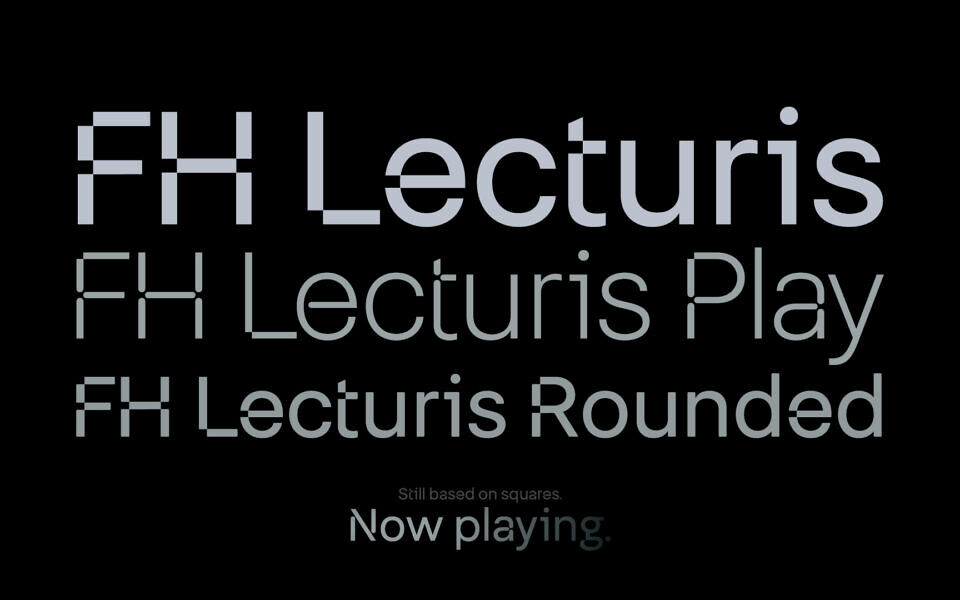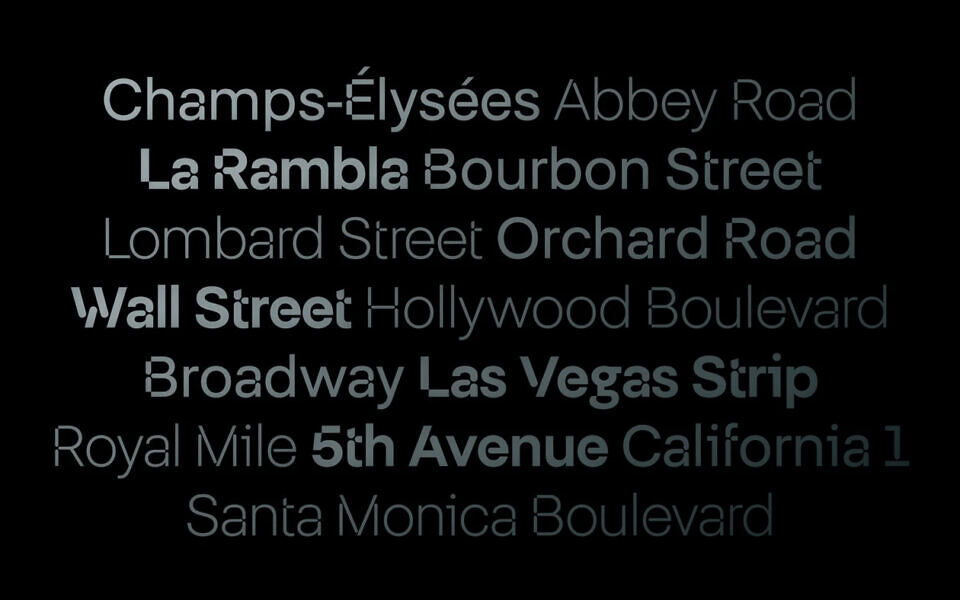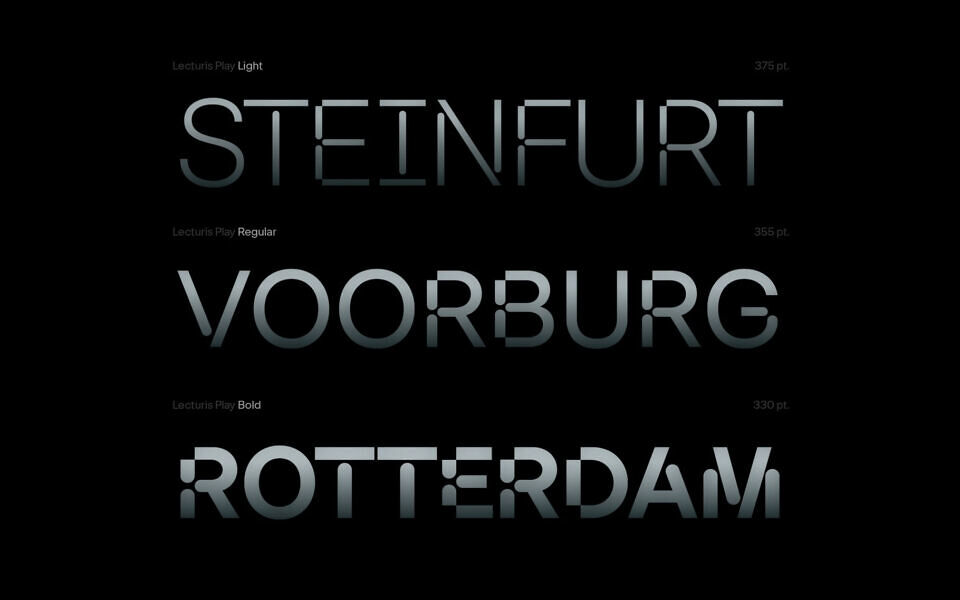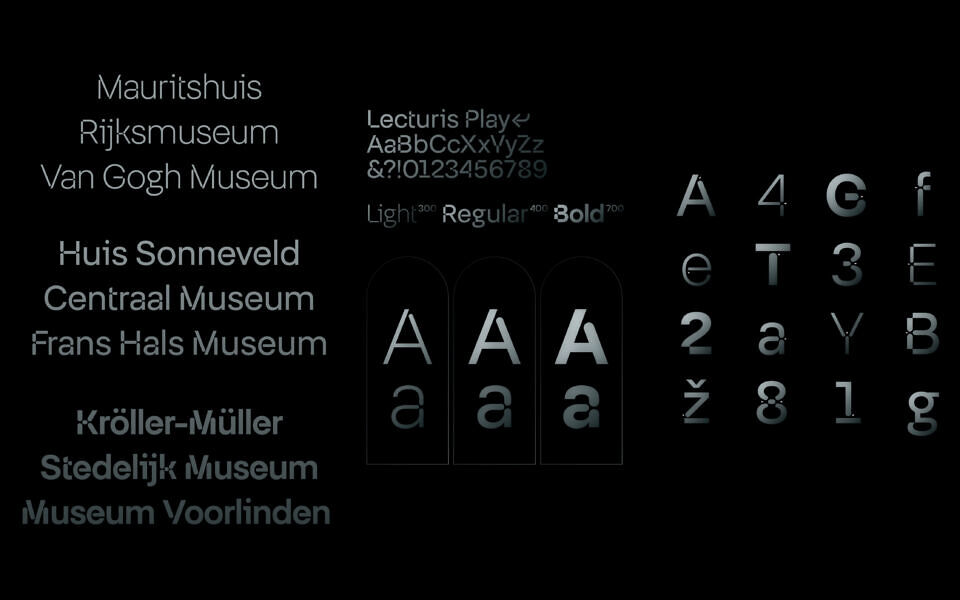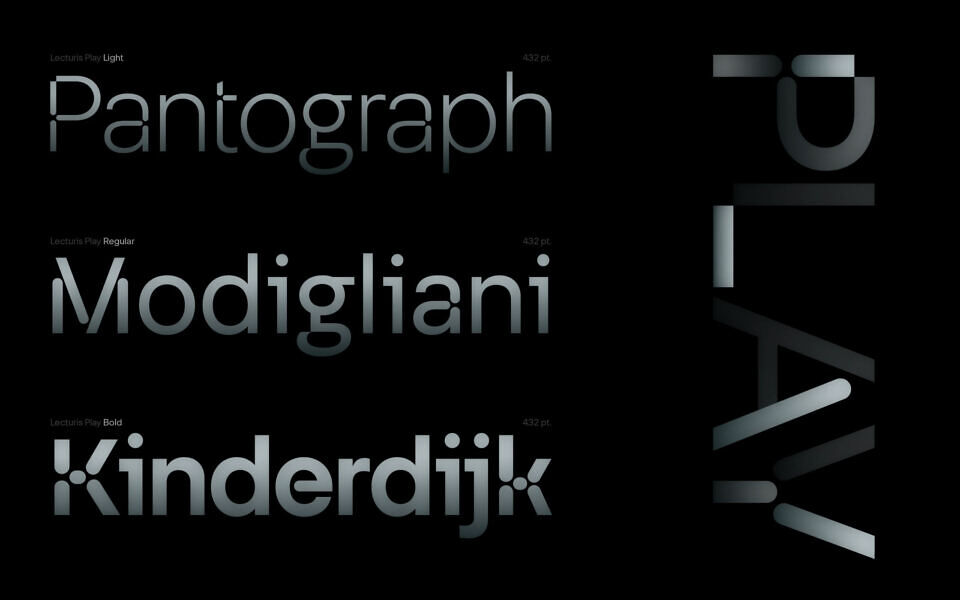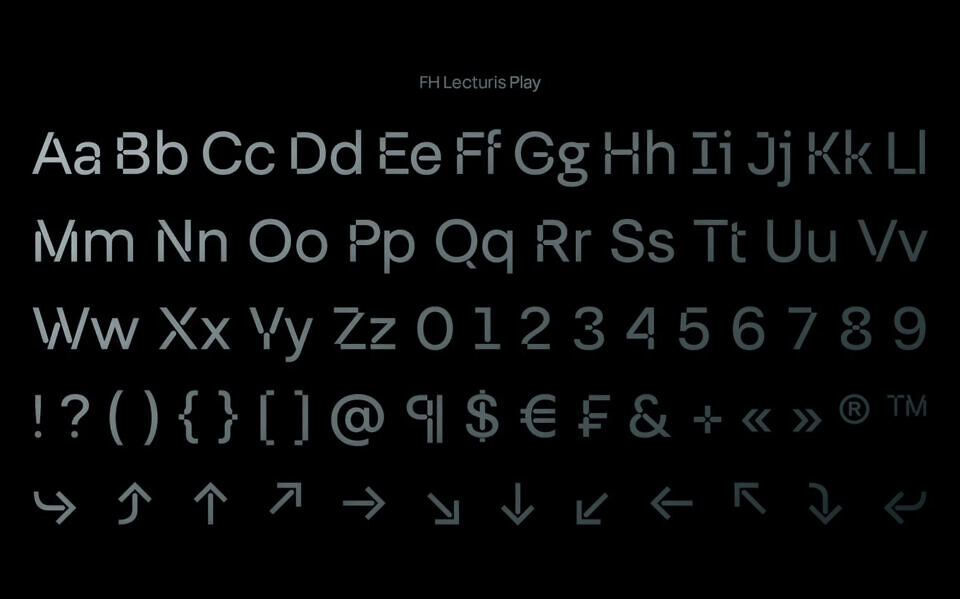
FH Lecturis is a neo-grotesk inspired by the rational grid systems of Wim Crouwel and the structural clarity of Akzidenz Grotesk. Drawn with modular precision, it softens its rigid core through rounded terminals and subtle optical adjustments. The result is a typeface that balances mechanical order with humanist warmth. Designed for editorial systems, institutional identities, and visual clarity at scale, FH Lecturis is where logic meets nuance.
The typeface approaches typography as a system for organising information while maintaining a distinctive visual voice. With the addition of FH Lecturis Play, the family expands its range, introducing a lighter and more playful interpretation of the original design language.